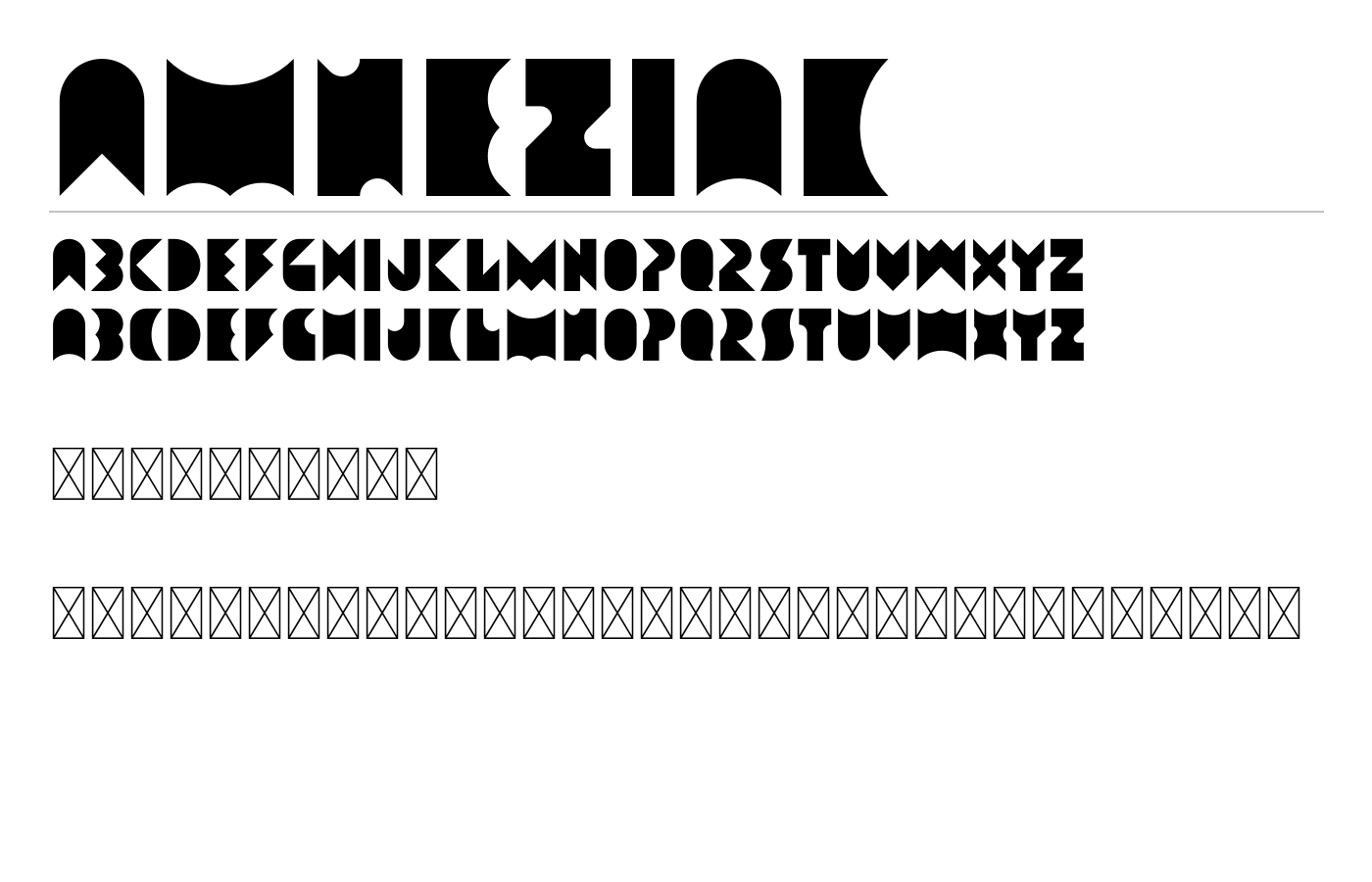
Amneziak is a bold, geometric display font characterized by its sharp, angular shapes and high contrast between thick and thin strokes. Its unique, stylized letterforms create a futuristic, edgy vibe, making it ideal for standout logos, posters, and creative branding that seeks to make a strong visual impact. This font works best in large sizes where its distinct personality can shine and capture attention.
Amneziak Font